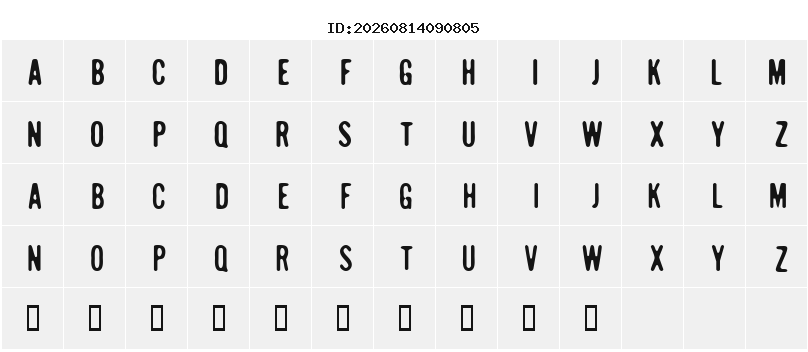
• Font Name: SugarCube
• Font ID: Altsys Fontographer 4.1 SugarCube
• Full Font Name: SugarCube
• Version: Altsys Fontographer 4.1 11/10/97
• PostScript Name: SugarCube
• Character Count: 55
• Copyright: copyright 1997 sound of print designed by bradford cox
About SugarCube.ttf
SugarCube.ttf is a modern, elegant sans-serif font designed for ultimate readability and visual harmony. Perfect for branding, headlines, web design, and print materials.